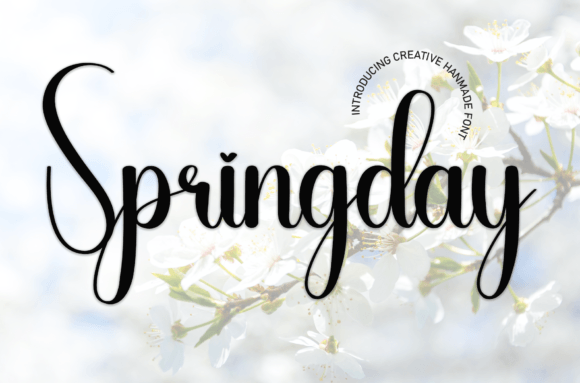
Introducing Springday Font - the perfect choice for your next design project! If you're searching for a font that's both playful and elegant, then look no further than this beautiful script font. Created by the talented William Jhordy, Springday Font is sure to bring a fresh and fun vibe to your designs.
This font is a fantastic option for anyone looking to create beautiful and eye-catching ID cards. With its clean, modern lines and friendly, approachable feel, Springday Font is the ideal choice for any project that requires a touch of personality. Its playful and charming nature will instantly grab the attention of your audience and make your design stand out.
Whether you're working on a wedding invitation or a card for a special occasion, Springday Font is sure to impress. It's versatile enough to be used in a variety of different design projects, but it truly shines when used in projects that need a lighthearted and whimsical touch.